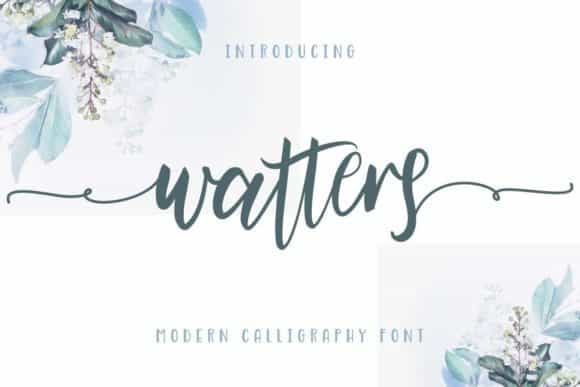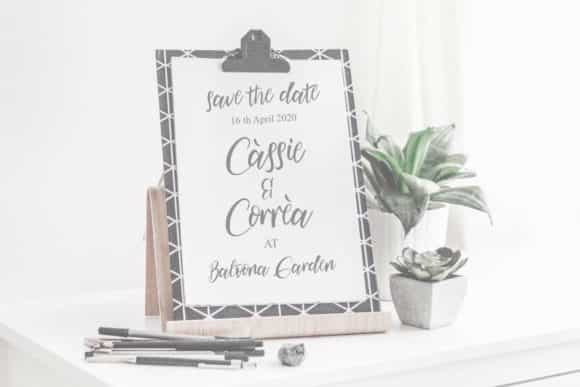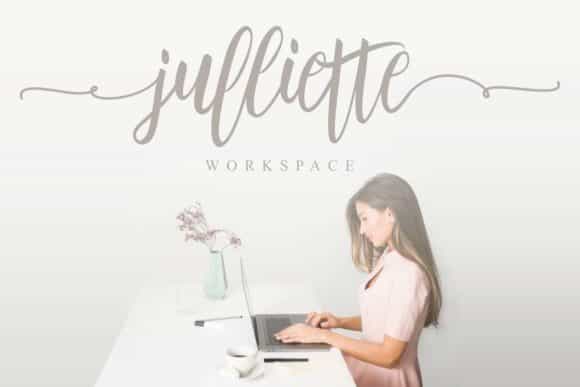
Here is the elegant new Watters Font! Watters was designed with OpenType and it has starting and ending swashes, numbers, punctuation, alternatives as well as ligatures. It also supports other languages.